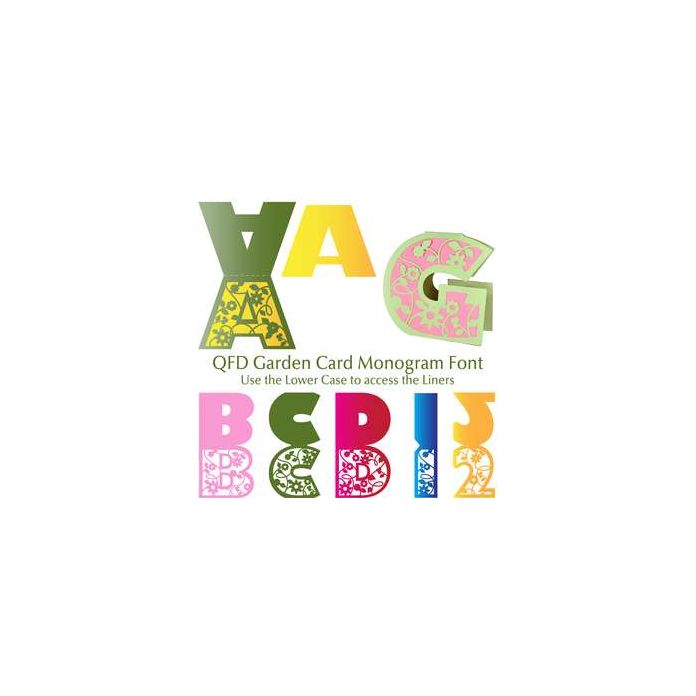
qfd summer flower card monogram font
Here is a monogram font that cuts into a letter-shaped card! Simply cut and fold! Use the lower case letters to get the corresponding liner for the letter. For the numbers, press the Shift key to access the corresponding liner. Use them on their own or make a banner with the letters. Combine them with other Quietfire Card Monogram Fonts, too. If you have any questions, please feel free to contact me!